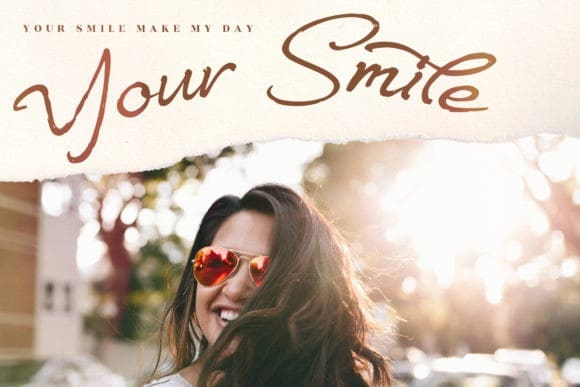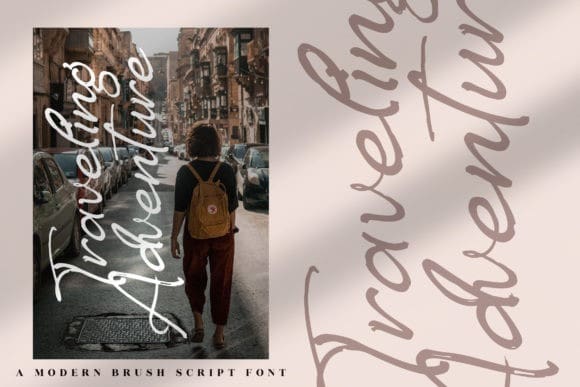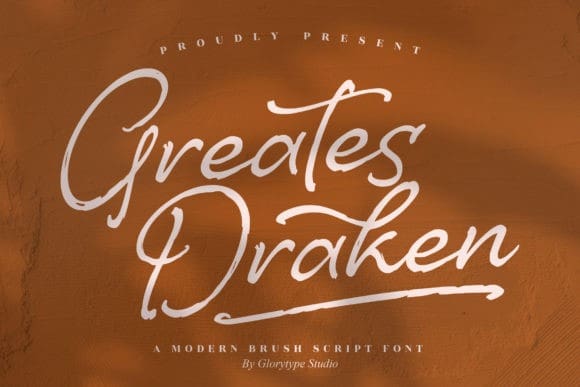
Greates Draken Font
Greates Draken Font is a stylish, brushed and delicate script font. It has a beautiful and balanced character, that fits well with the large design pool. This font is PUA encoded which means you can access all of the glyphs and swashes with ease.